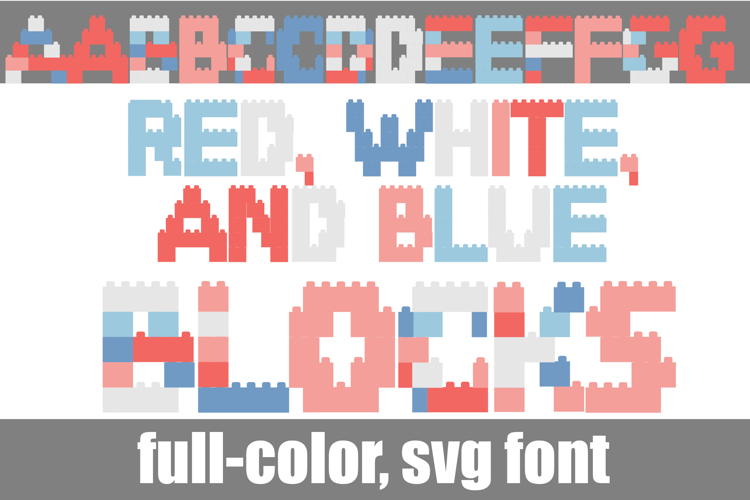
Red, White, and Blue Blocks Too Color Font
This full-color, building block style font is in a pastel patriotic color palette. There is an alt case of additional colors of each letter that you can access through your system's character map.